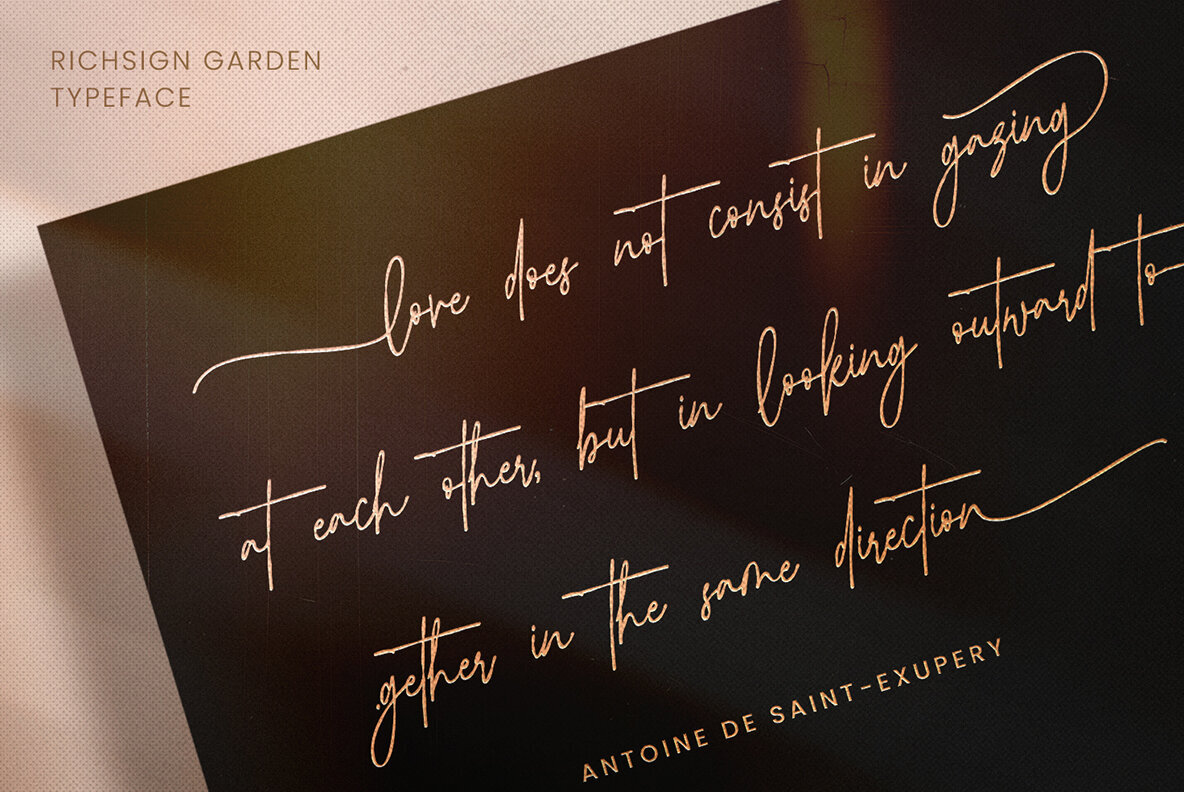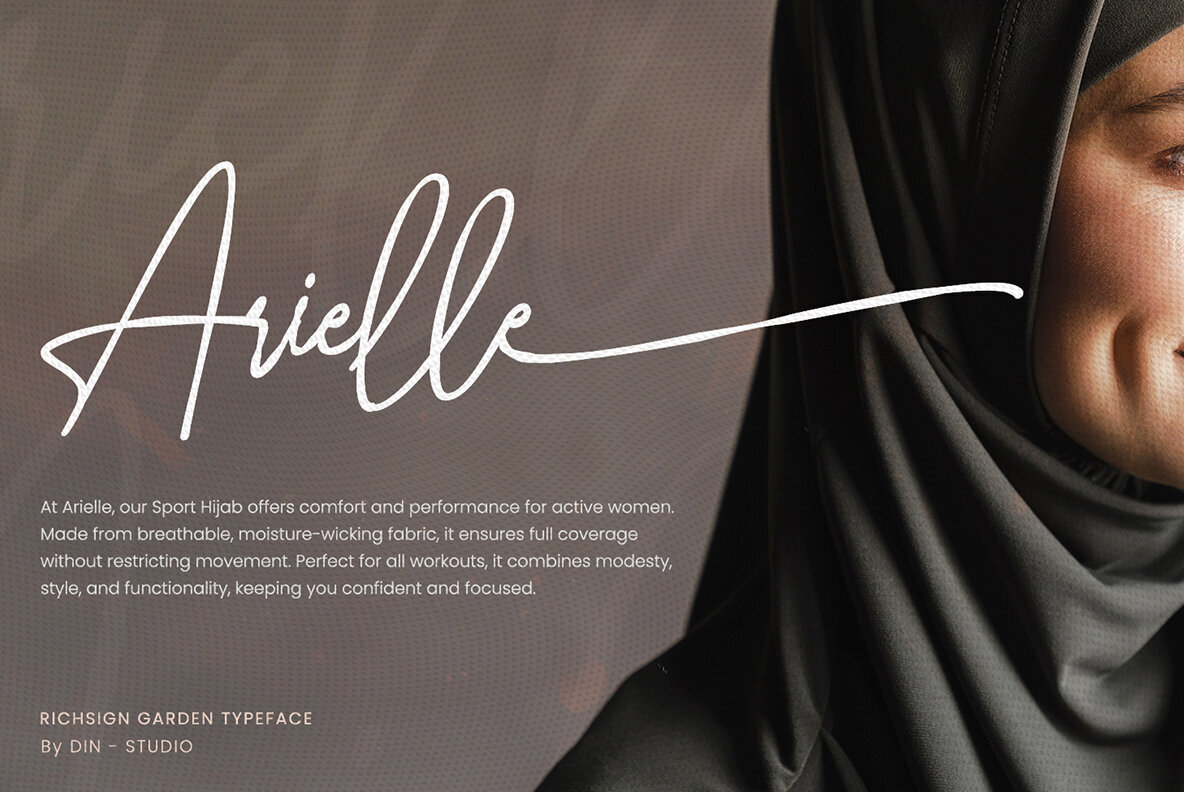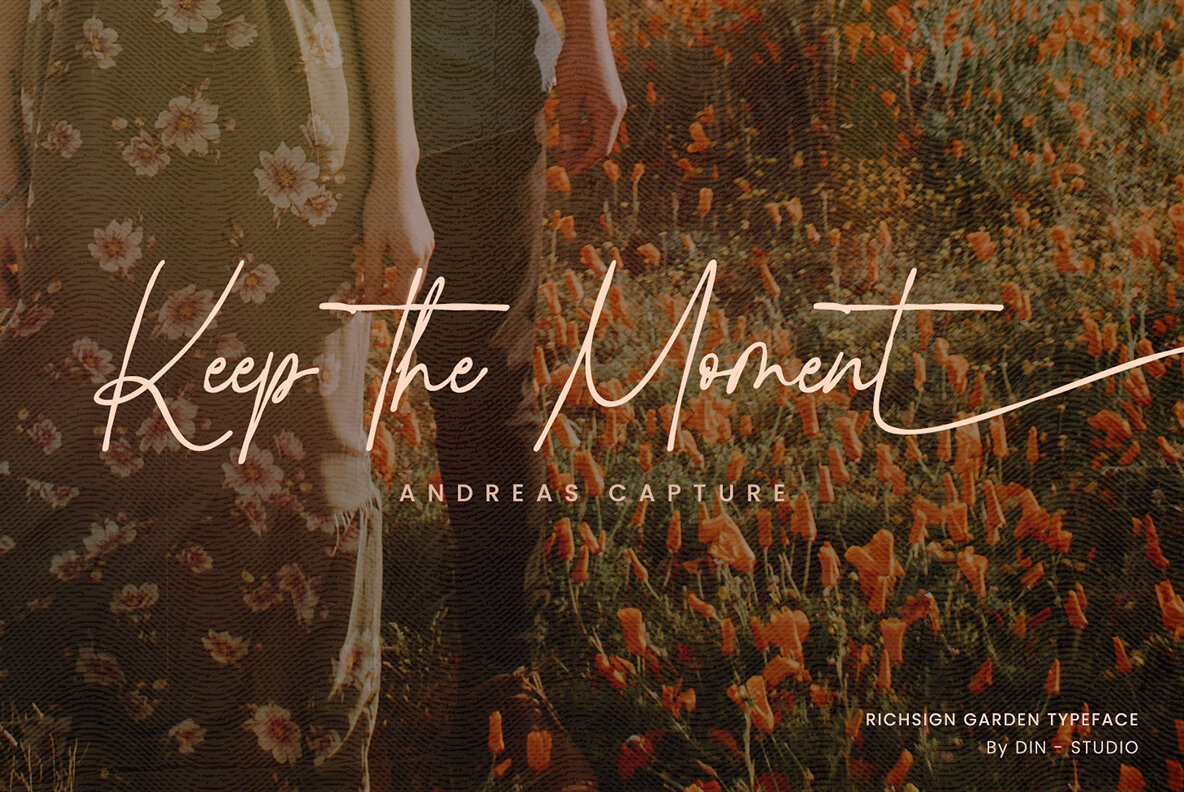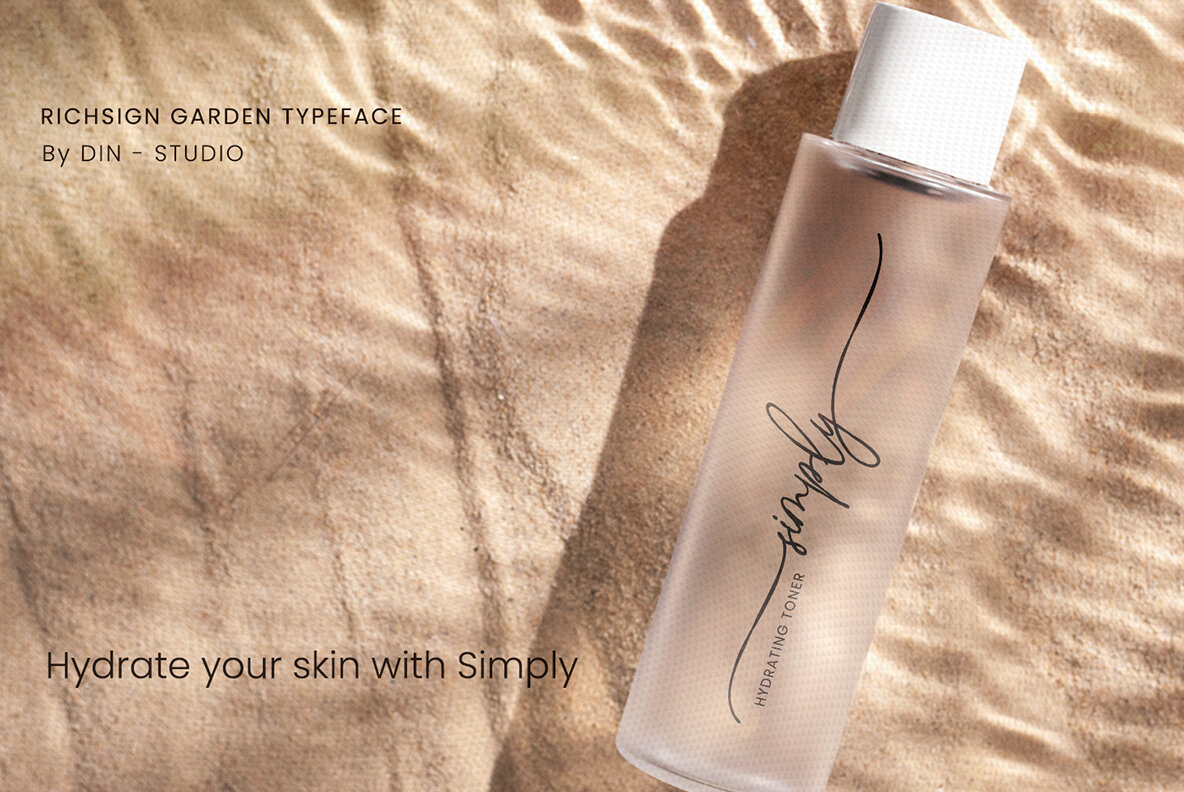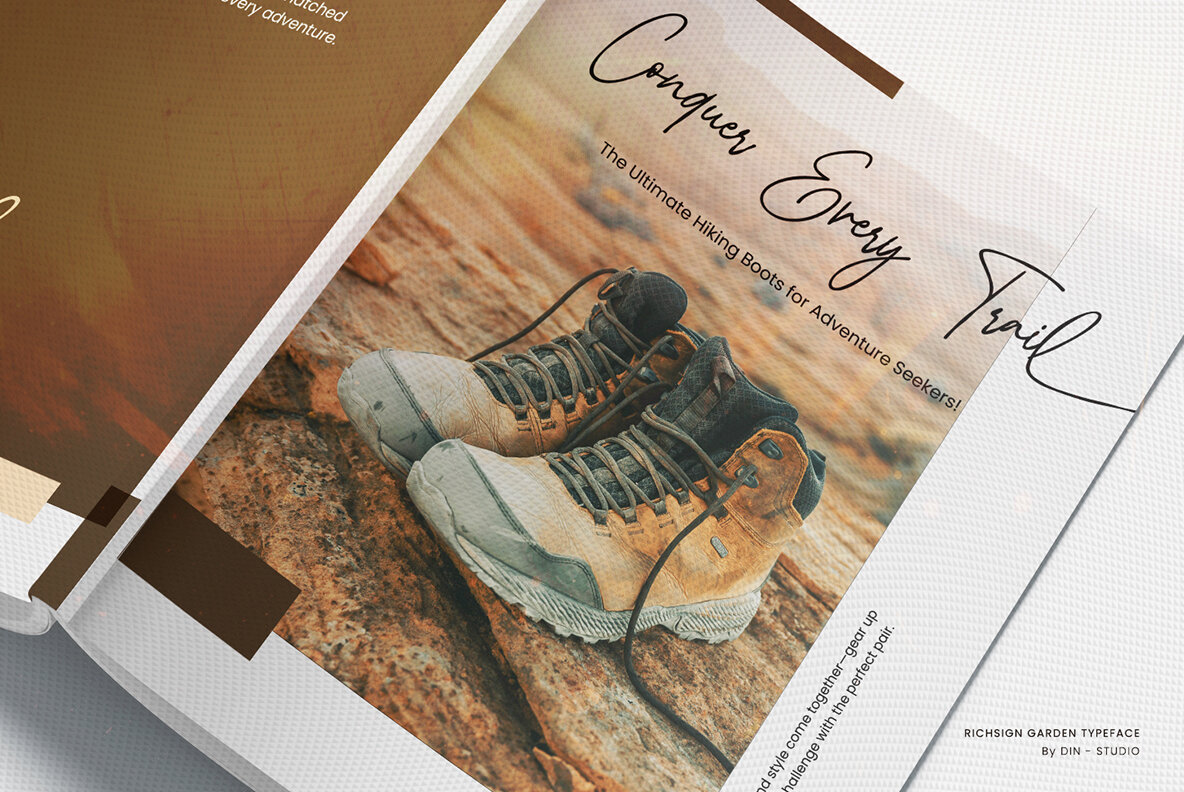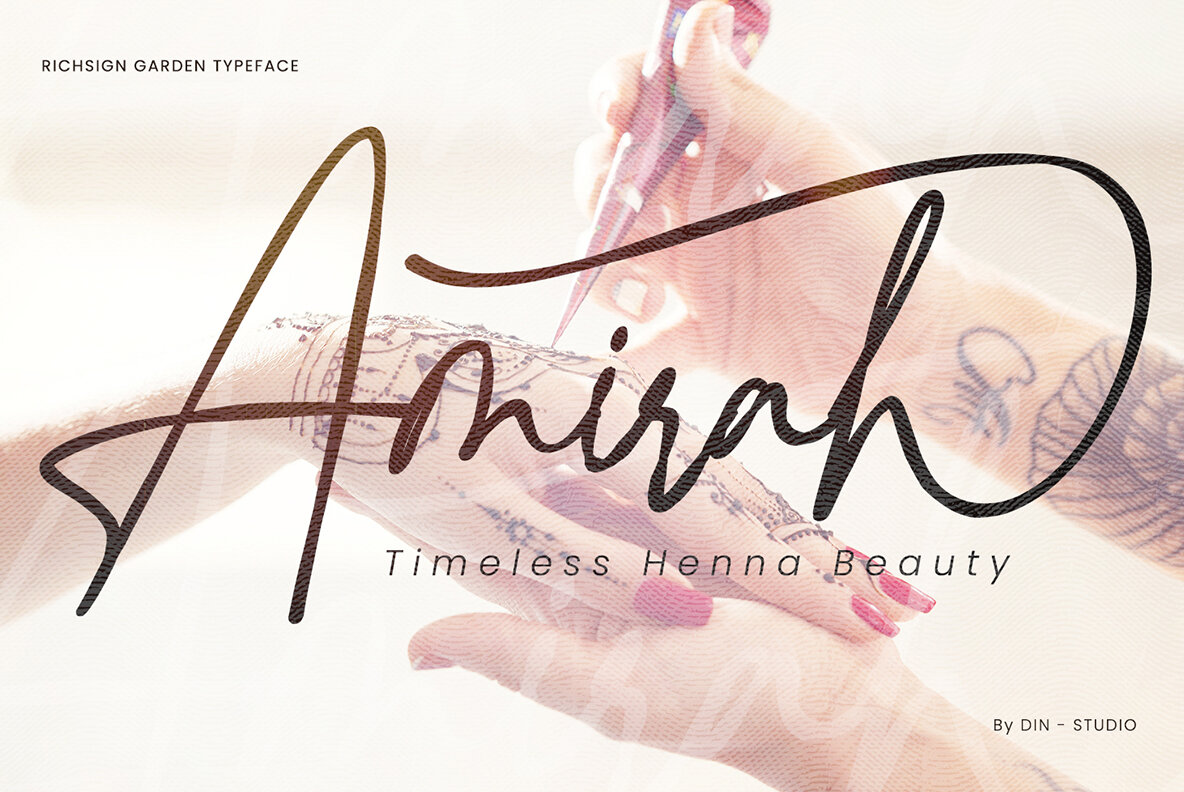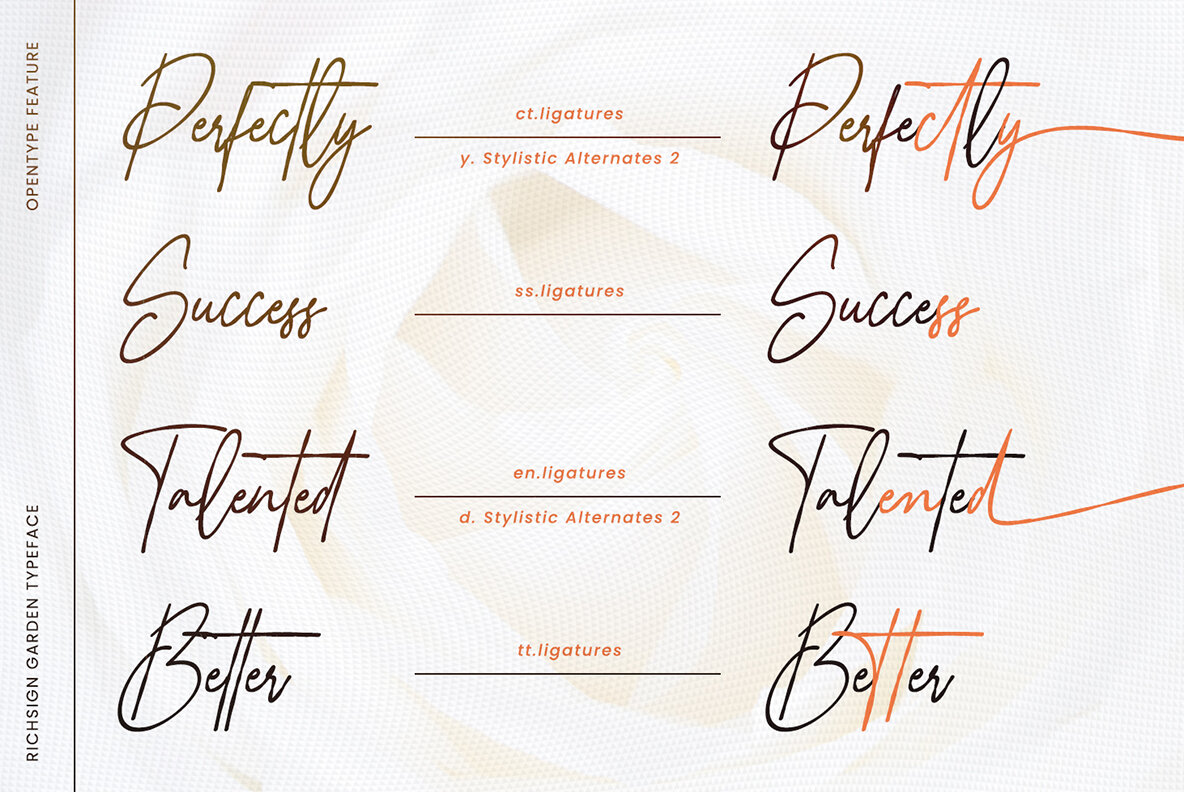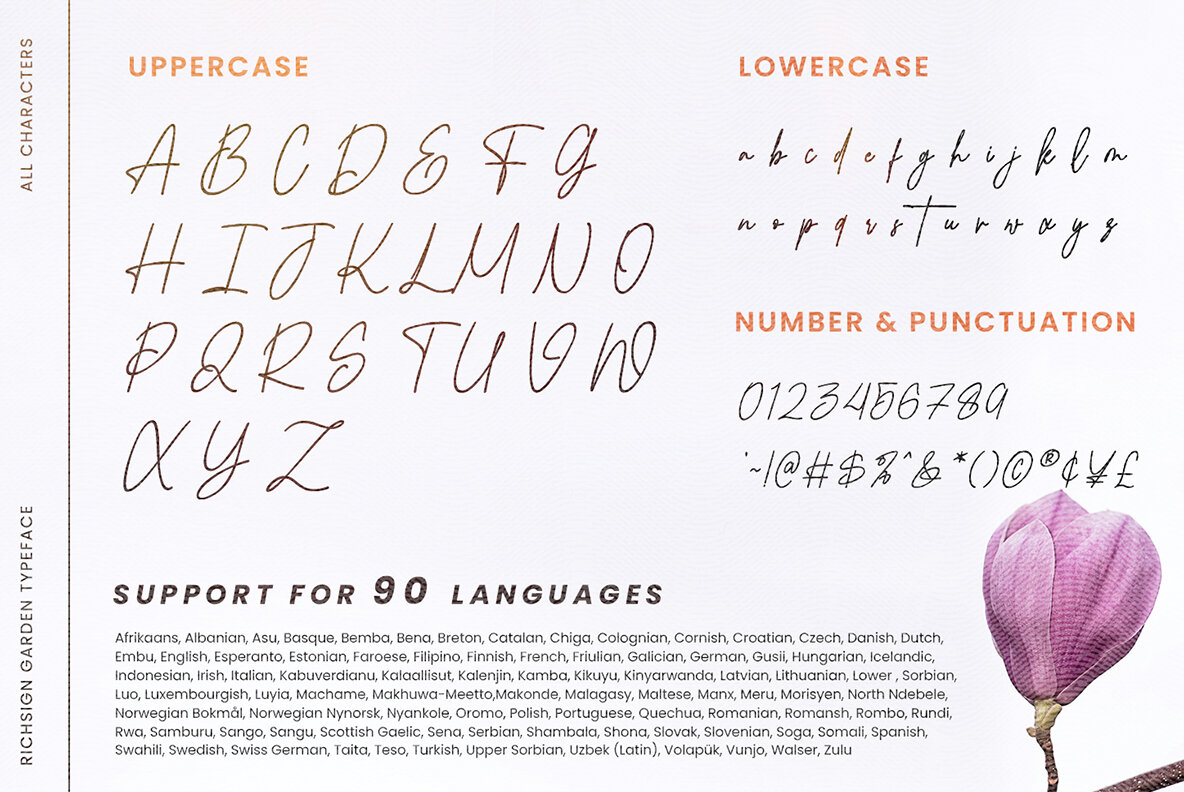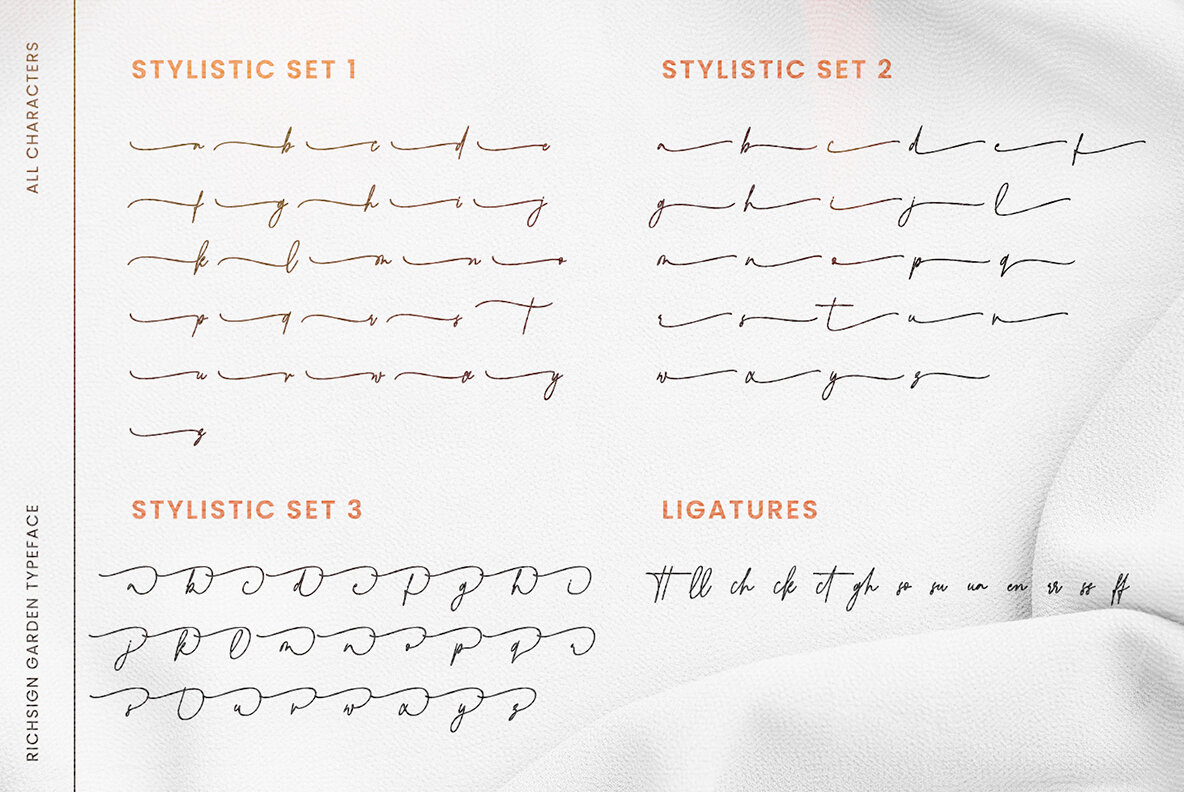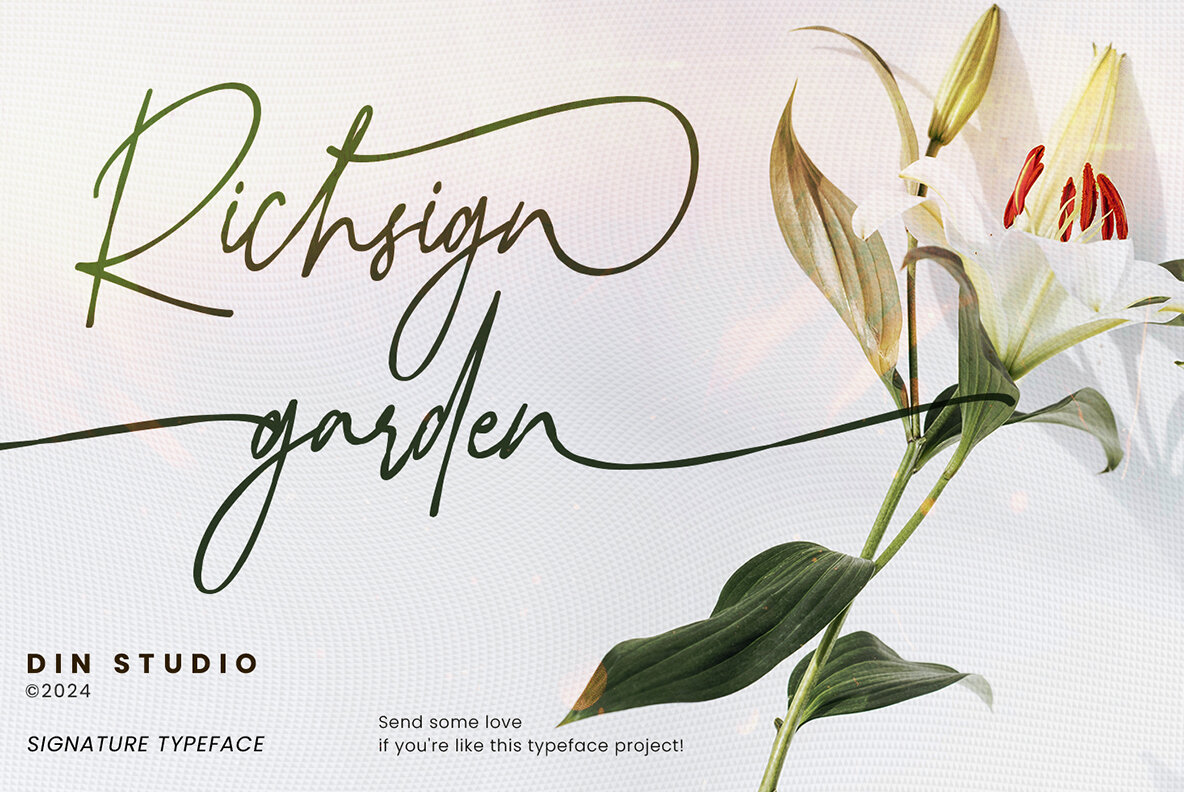
Richsign Garden Font
Richsign Garden Regular
Richsign Garden is an elegant script font designed to bring a refined signature style to your projects. Featuring beautifully connected letters and subtle, low contrast, this font introduces a touch of sophistication and a smooth flow to any design. It offers a polished and graceful aesthetic that enhances visual appeal across various applications.
This versatile font includes stylistic sets, ligatures, multilingual support, PUA encoding, as well as numerals and punctuation. Perfectly suited for headlines, logos, posters, invitations, branding materials, packaging, print media, and editorial layouts, Richsign Garden allows for creative freedom in a range of design contexts. Explore the diverse possibilities by viewing the font preview.